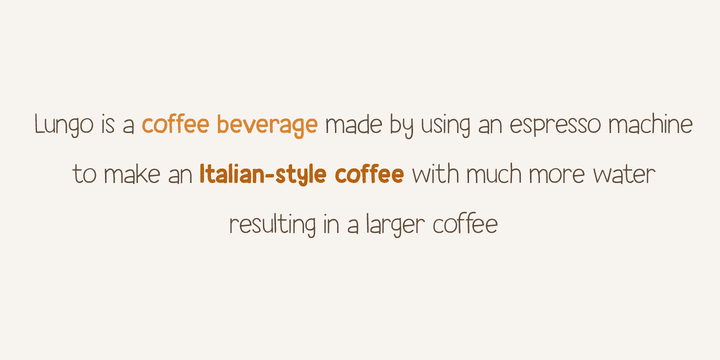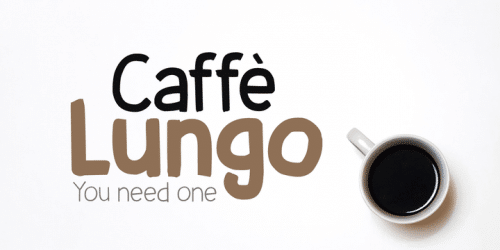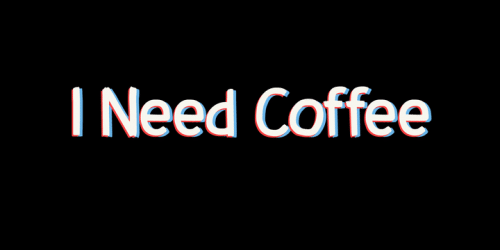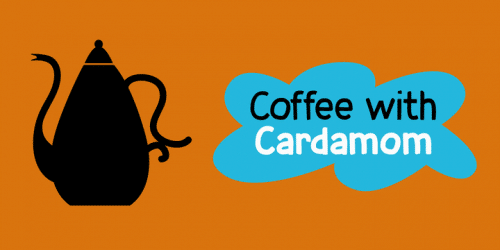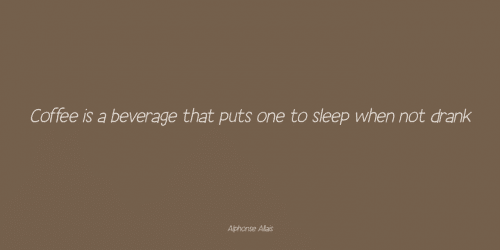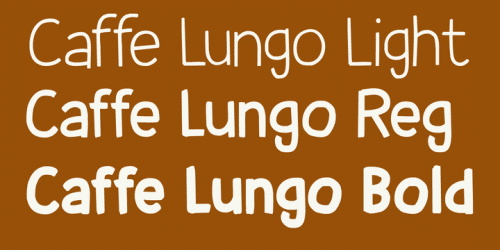
Caffe Lungo is a beautiful set of handmade fonts. Lungo is very legible, very clear, but has that authentic ‘handmade’ look.
Caffe Lungo comes in three weights, each with its own Italic style. I also added ligatures for the g_j and j_j letter combinations.
- Designer: David Kerkhoff